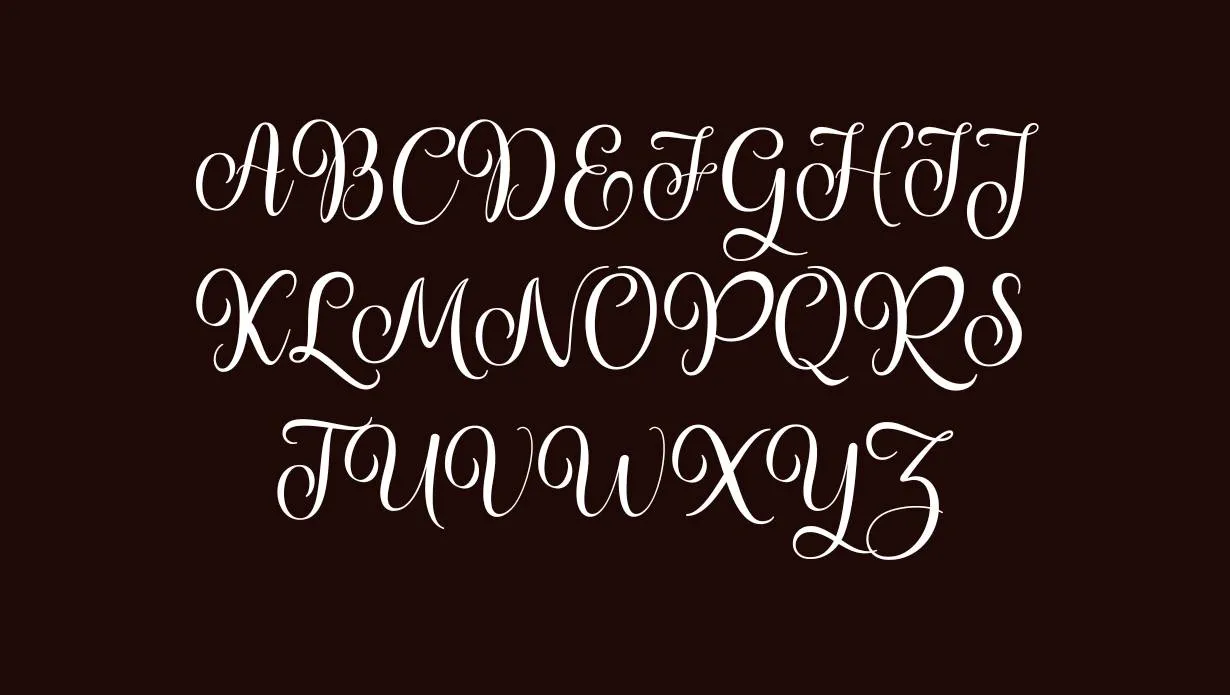
Pretty Font is a unique and elegant typeface. This typeface belongs to the calligraphy font family. The characters of this have thin strokes and decorative edges which makes it more appealing. This font was designed by a popular foundry named Cut Story.
This typeface is the perfect option to pair with a famous got milk font. You can easily utilize this attractive typeface for designing prominent headings, titles, and subheadings. This font comes in single regular weight.
View of Pretty Font
Name | Pretty Font |
Designer | Cut Story |
Style | Calligraphy |
Font Family
- Pretty Regular